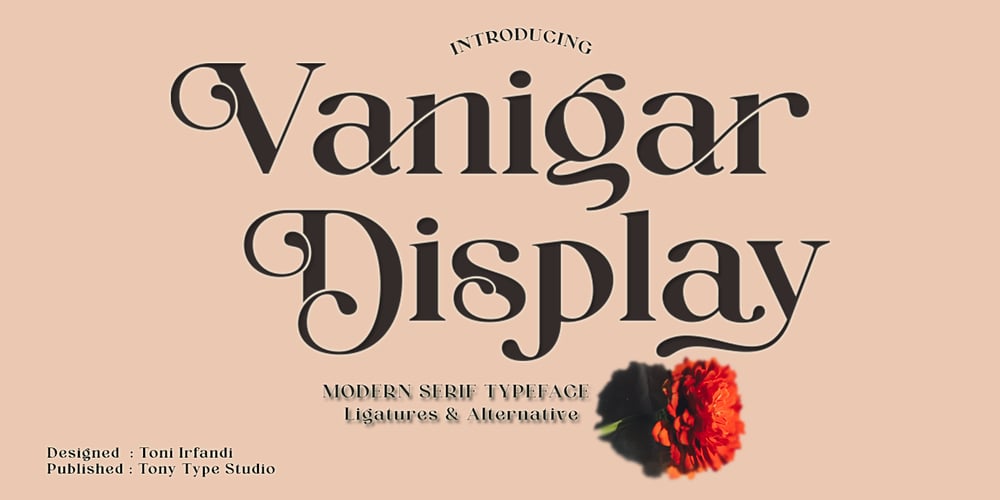
Vanigar Display Font Family was designed by Toni Irfandi and published by Tony Type Studio. Vanigar Display contains 1 styles and family package options. Vanigar Display is a serif font that comes with a very beautiful change character that will bring a touch of luxury and style to your projects. Vanigar Display is perfect for editorial design, branding, headings, logos, magazines and more.